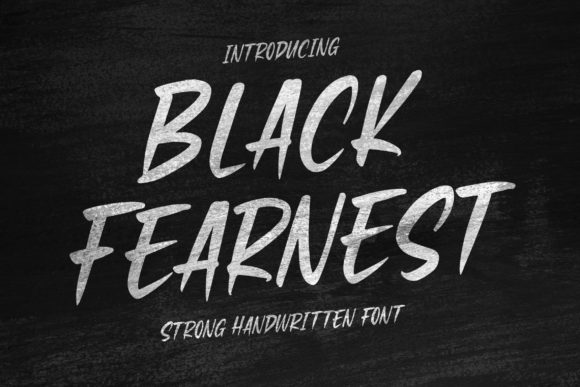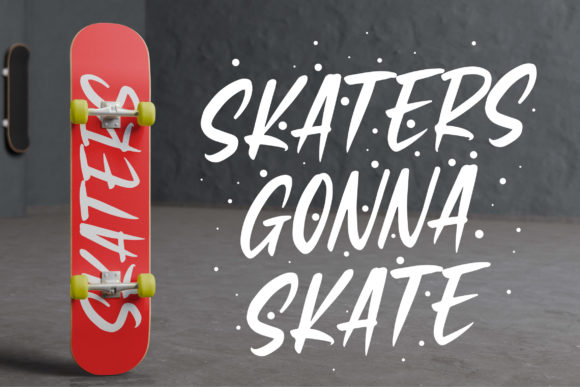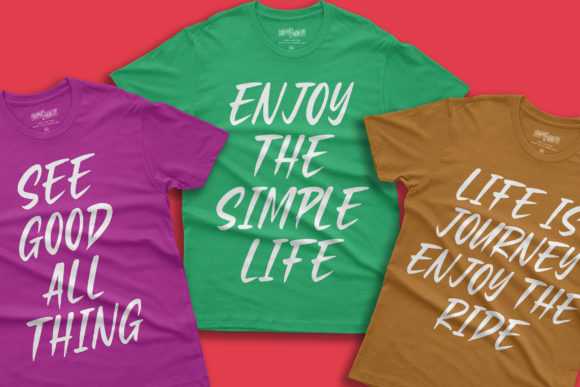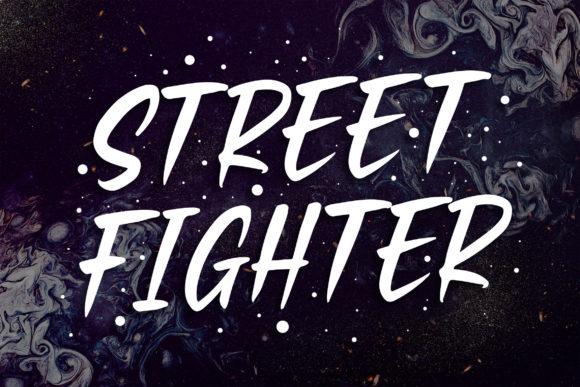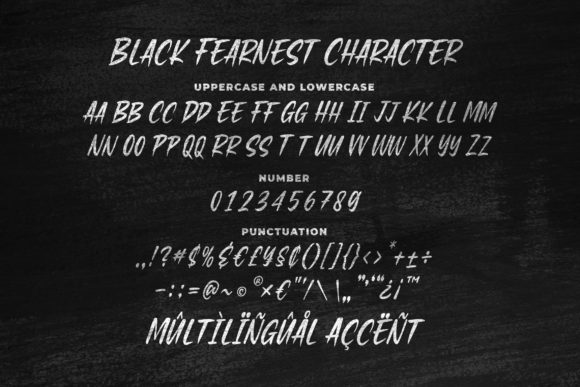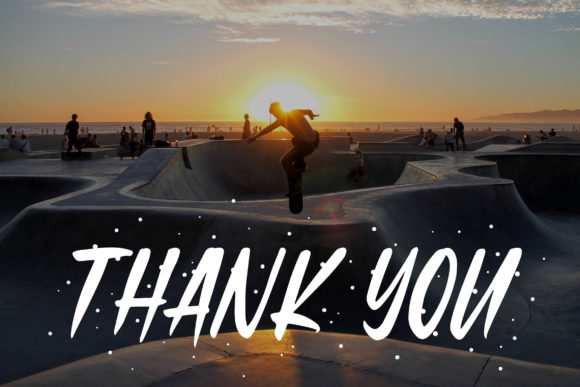
HomeScript FontsBlack Fearnest Font Script Fonts Black Fearnest Font FacebookXPinterestWhatsApp Black Fearnest Font Poster 2 Black Fearnest Font Poster 3 Black Fearnest Font Poster 4 Black Fearnest Font Poster 5 Black Fearnest Font Poster 6 About Black Fearnest Font Black Fearnest is strong and bold. It gives a good urban feel to any project! DOWNLOAD NOW People also explored Gingerbel Font School Football Font Angelica Font Amelia Script Font Honey Bunny Font Selvia Font Hibring Font Milea Font Spooky Coming Font 291 0 TagsBlack Fearnest Font Previous articleFeifande FontNext articleInside Lover Font LEAVE A REPLY Cancel reply Comment: Please enter your comment! Name:* Please enter your name here Email:* You have entered an incorrect email address! Please enter your email address here Website: Save my name, email, and website in this browser for the next time I comment. Personal Use Free The Winter Personal Use Free Read more about this font Rogueland Personal Use Free Read more about this font Mika Personal Use Free Read more about this font Super Discount Personal Use Free Read more about this font BLOG Transform Your Website: Elevate Your Typography with 7 Best Web Font Generators Are you ready to transform your website's typography from ordinary to extraordinary? Great! Today, we're diving into the world of web font generators, which... To increase your work productivity, choose the most readable fonts. How to Cut Any Font on Cricut: Convert a Font to SVG (Free) Free vs Paid Fonts: Why Investing in Premium Fonts Is Worth It